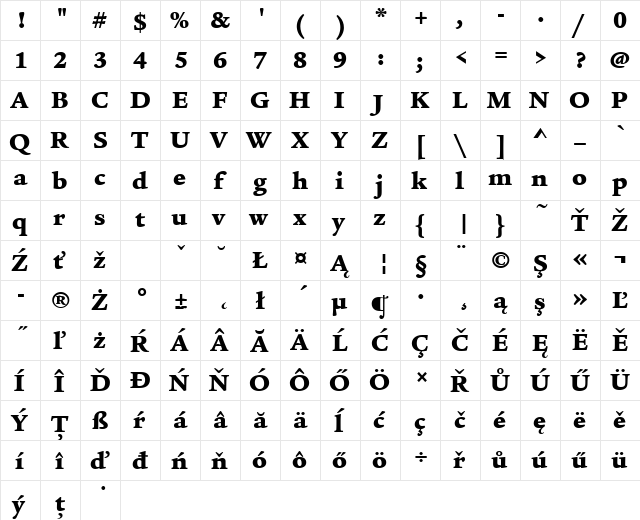
LegacySerItcTEEUlt Regular
Design Context for LegacySerItcTEEUlt Typeface
LegacySerItcTEEUlt offers clean, dependable letterforms without strong stylistic allegiance, making it a practical choice for designers who need flexibility.